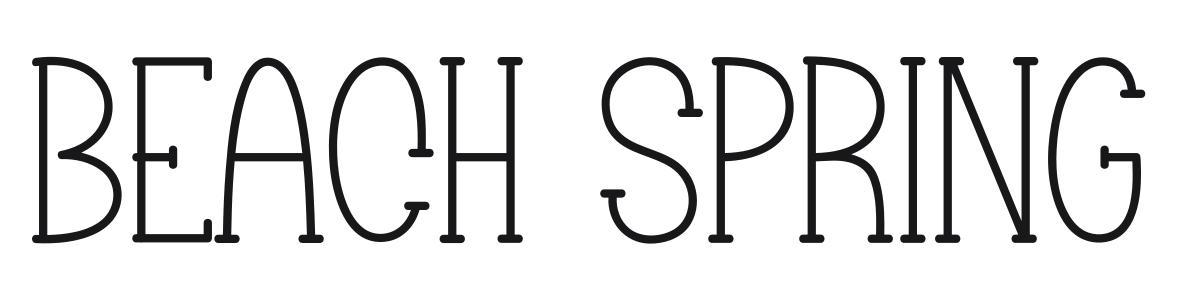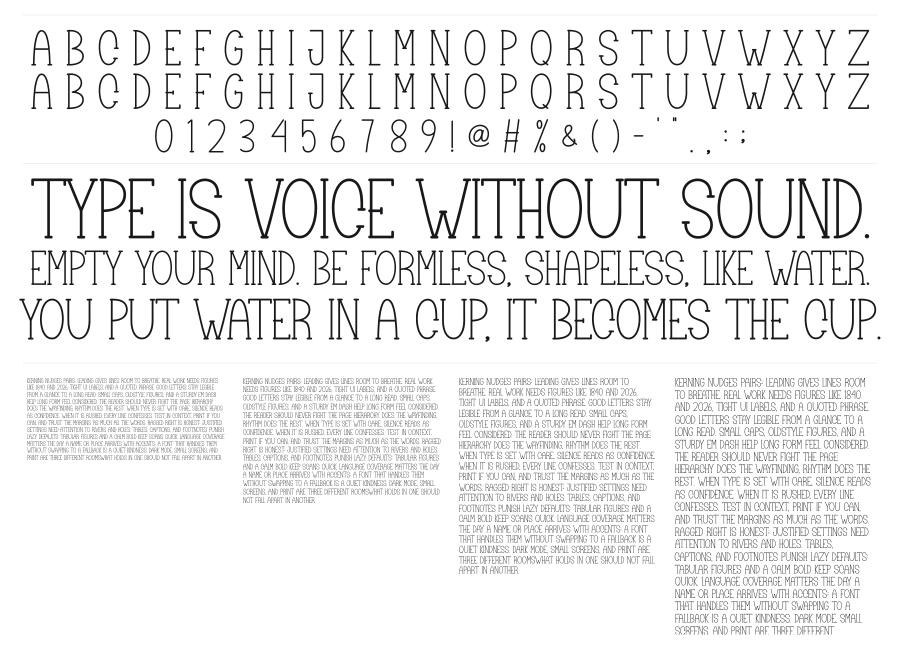
Beach Spring
by Scratchones · Website
Beach Spring is a tall condensed serif with a light, almost skeletal stroke weight and subtle art deco detailing. Inline notches at stroke junctions give it a refined decorative quality that sits somewhere between a 1920s fashion headline and a modern boutique logo. The narrow proportions and airy construction make it a strong choice for titles, invitations, and branding where elegance is the priority.